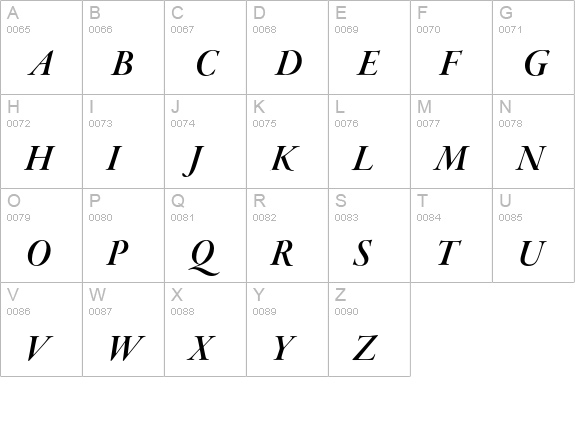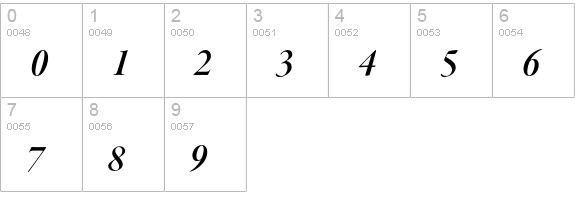
Garamond Premier Pro Semibold Italic Display Font Details
Garamond Premier Pro Semibold Italic Display is a sub-bold, structured, italic variant in the Garamond typeface family \xE2\x80\x94 well suited to sub-headlines and emphasised passages.
Garamond Premier Pro Semibold Italic Display font is a bold and elegant typeface that exudes sophistication and class. Its sleek and modern design makes it perfect for eye-catching headlines and attention-grabbing displays. The semibold weight adds a touch of emphasis and authority, while the italic style brings a sense of dynamism and movement to your text. This font is a versatile choice for designers looking to make a statement with their typography. Whether you're designing a magazine layout, creating a logo, or working on a branding project, Garamond Premier Pro Semibold Italic Display font will elevate your design and give it a professional edge. Best of all, this font is freely available to download at FontsMarket.com. So you can add this stylish typeface to your font collection without breaking the bank. Don't miss out on the opportunity to enhance your design projects with the timeless charm of Garamond Premier Pro Semibold Italic Display font. Download it today and start creating stunning designs that stand out from the crowd.